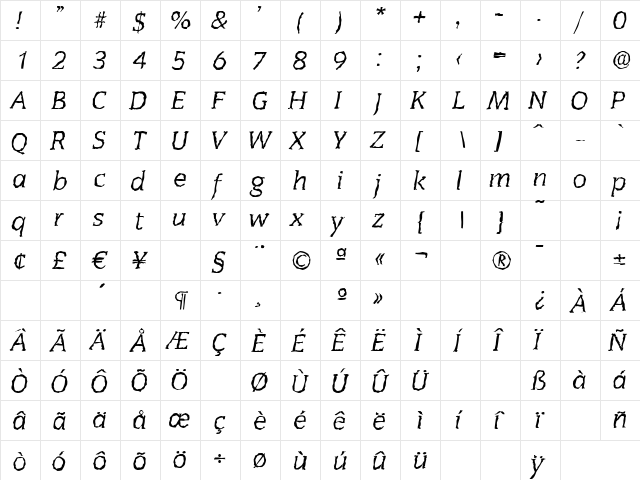
CongressRandom Italic Font Preview
CongressRandom Italic
CongressRandom Italic Font Details
Design Context for CongressRandom Typeface
CongressRandom is a composed and adaptable typeface that performs quietly and consistently across a wide range of design contexts. The dynamic lean of this cut emphasises speed and emphasis in any layout.
Pro Tip: Use CongressRandom for emphasis, pull quotes, and subheadings where its slanted energy can add rhythm to the layout.